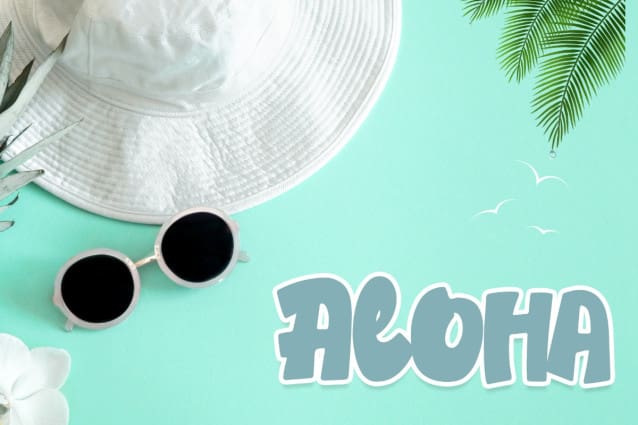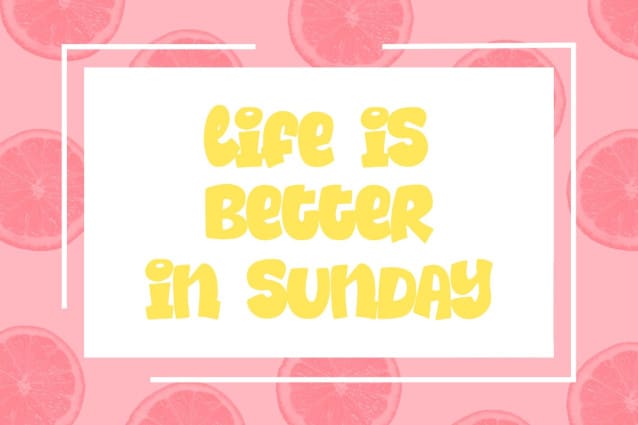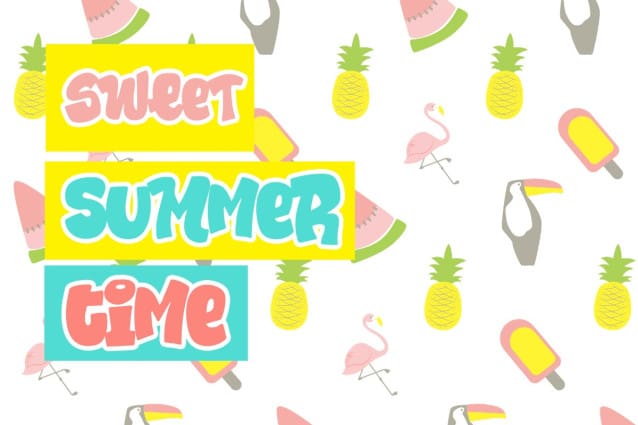
Summer Days Font
Summer Days Font is a vibrant and playful typeface that captures the essence of sunny days and carefree vibes. With its cheerful letterforms and lively style, this font is perfect for adding a touch of warmth and joy to your designs. Whether you’re creating invitations, posters, or social media graphics, the Summer Days Font will infuse your projects with a sense of fun and positivity.